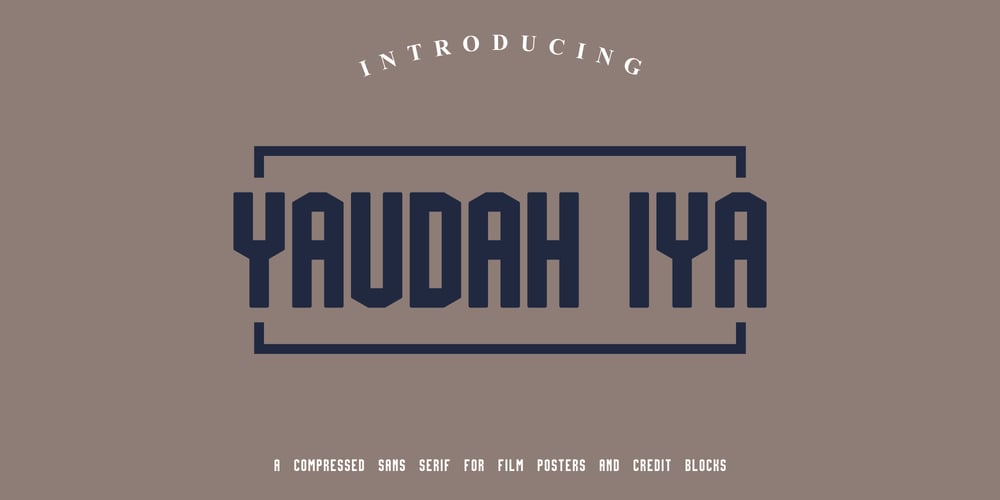
Yaudah Iya
Yaudah Iya font
Yaudah Iya Font Family was designed by Akhmad Afandhi and published by Evo Studio. Yaudah Iya contains 1 styles and family package options. Yaudahiya a daring slab serif font that redefines authenticity with its unparalleled boldness. Its visually striking style will transform your designs, making them outshine ordinary with ease. Yaudahiya’s understated simplicity seamlessly fuses with any design, amplifying its overall appeal. Brace yourself for a journey to artistic success with Yaudahiya.